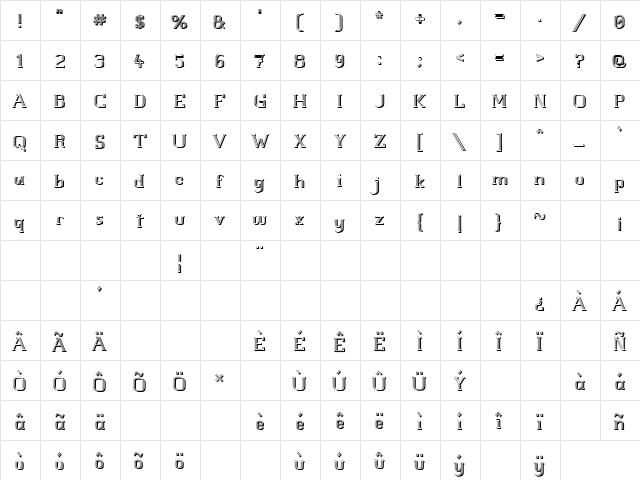
White Line Fever Light 3d 1.00 Regular Font Preview
White Line Fever Light 3d 1.00 Regular
Design Context for White Line Fever Light 3d 1.00 Typeface
White Line Fever Light 3d 1.00 takes a measured approach to typography — its balanced proportions and neutral character make it a reliable workhorse for both digital and print work. Its slender proportions lend an understated elegance to any composition.